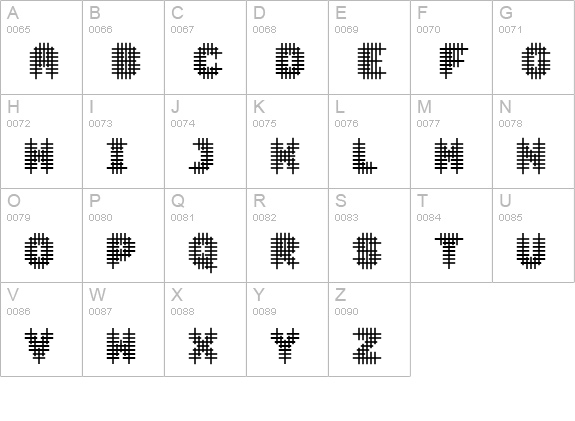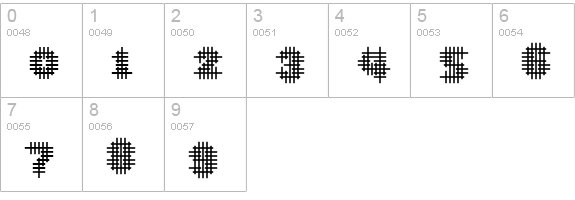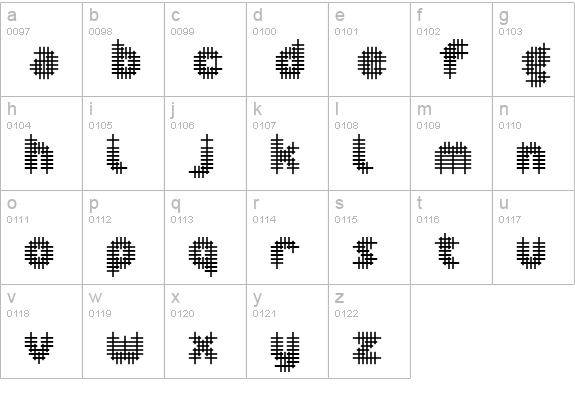
Overcross SemiBold is a sub-bold, structured variant in the Overcross typeface family \xE2\x80\x94 well suited to sub-headlines and emphasised passages.
Overcross SemiBold font is a modern and stylish typeface that exudes confidence and sophistication. With its bold and strong appearance, this font is perfect for making a statement in your design projects. Whether you are creating a poster, logo, or website, Overcross SemiBold will elevate your work to the next level. The clean lines and sharp edges of this font give it a professional and polished look, making it ideal for branding and advertising purposes. Its versatility allows it to be used in various design contexts, adding a touch of elegance and flair to any layout. The best part is that Overcross SemiBold font is available for free download at FontsMarket.com. You can easily access this high-quality typeface to enhance your projects without any cost. Don't miss out on the opportunity to add Overcross SemiBold to your font collection and elevate your design work to new heights.